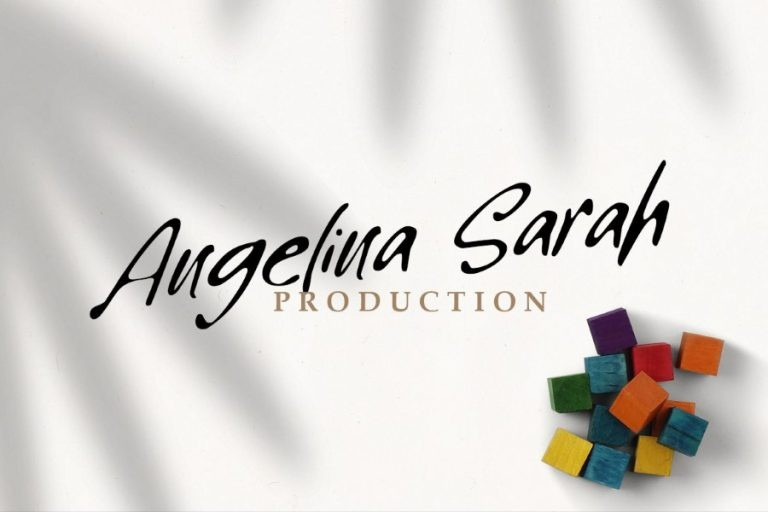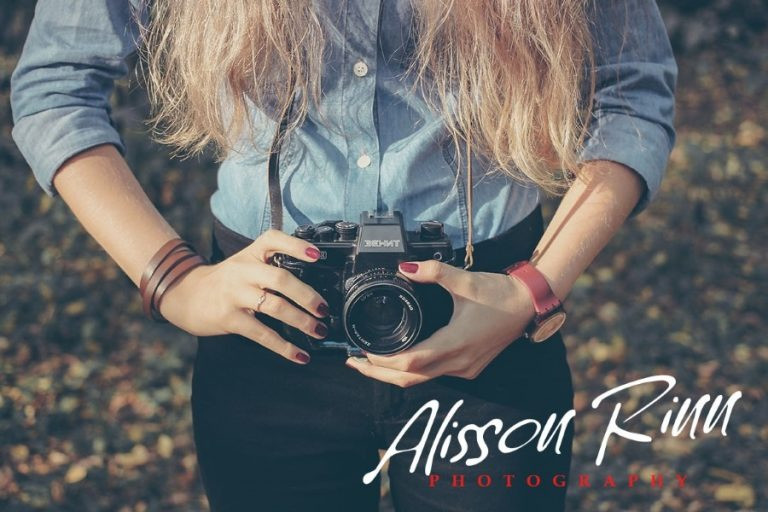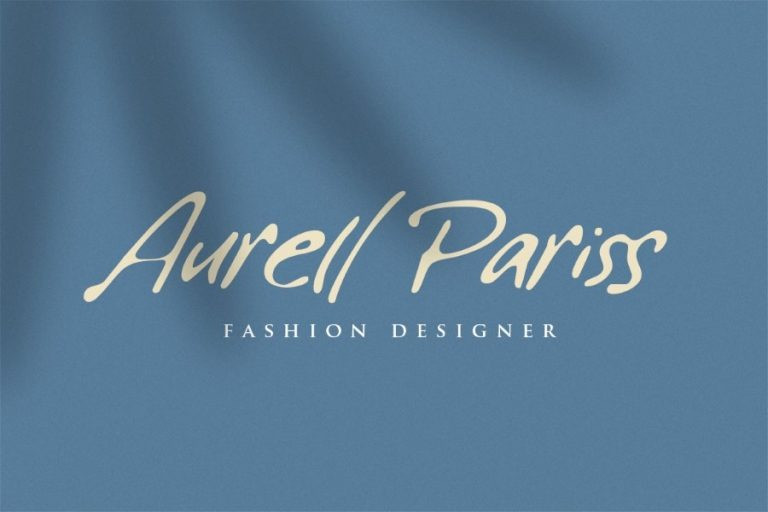
Blooms Script Font
Blooms is a fresh handwritten script just waiting for you to use it in your projects.
With its quirky shapes this font is perfect for colorful posters, magazine designs, logos and many more applications.